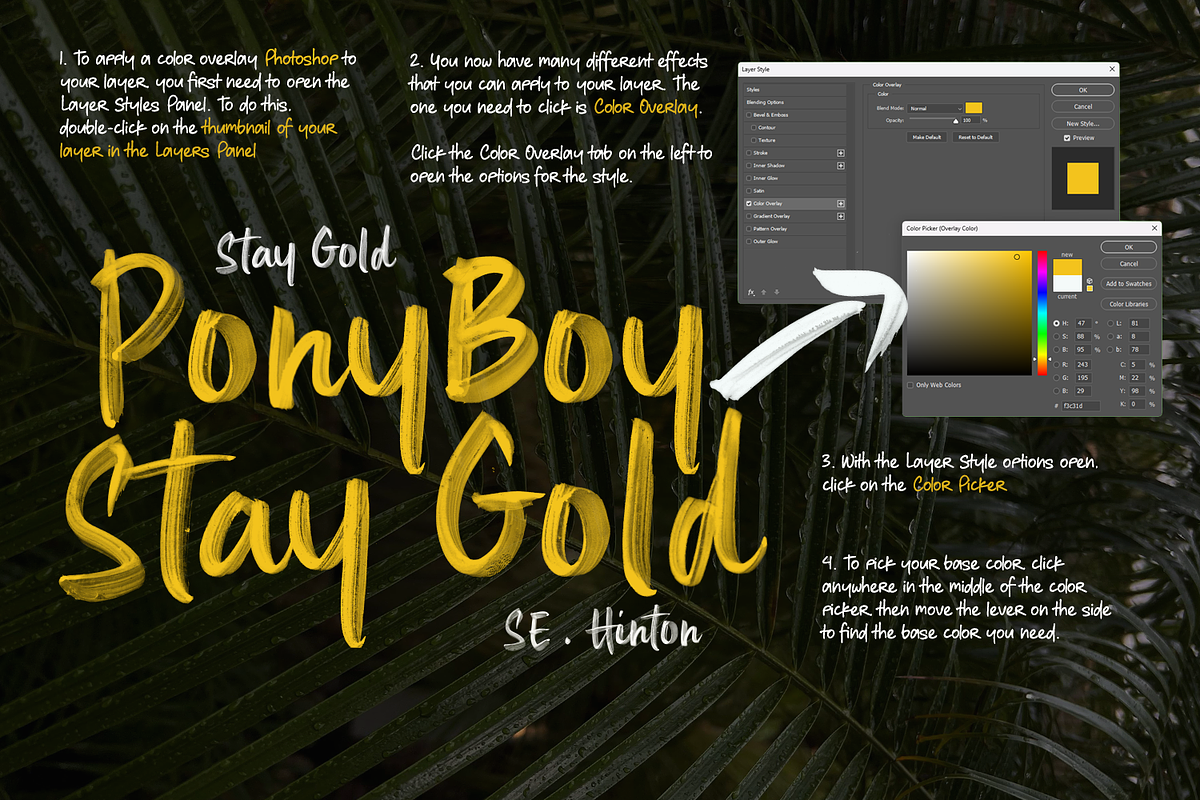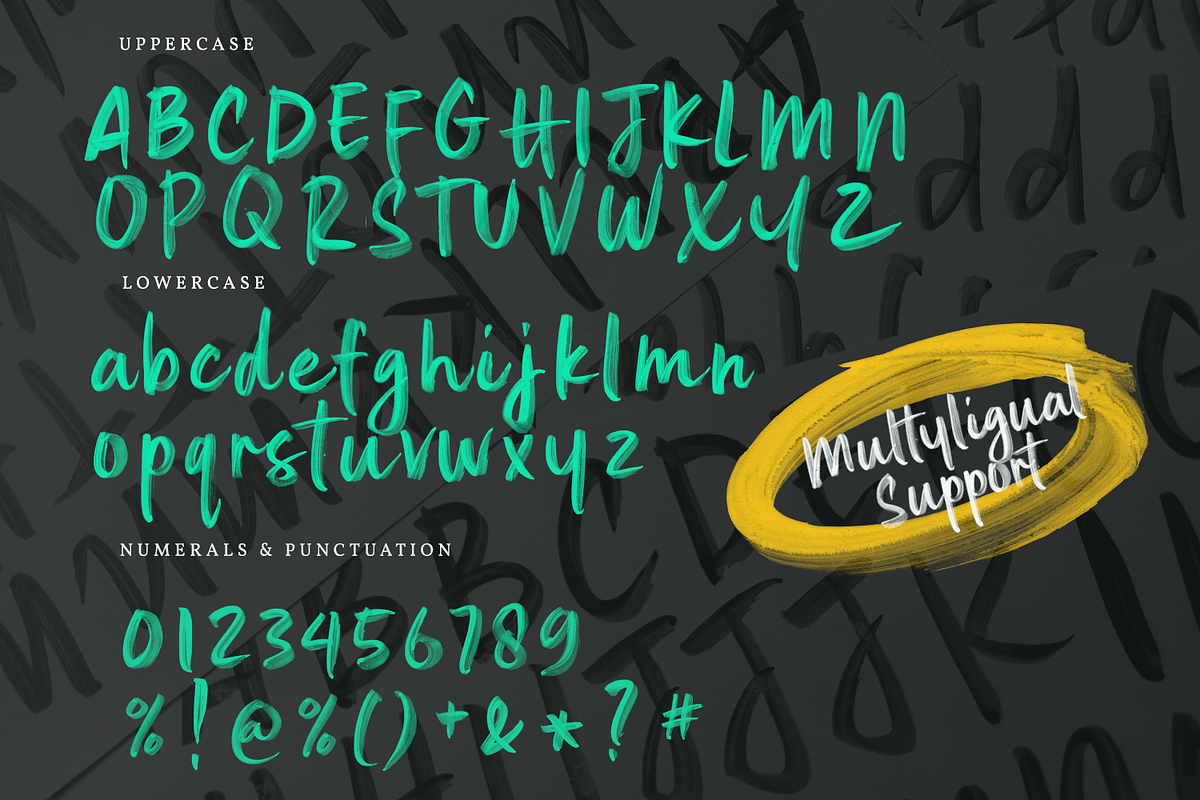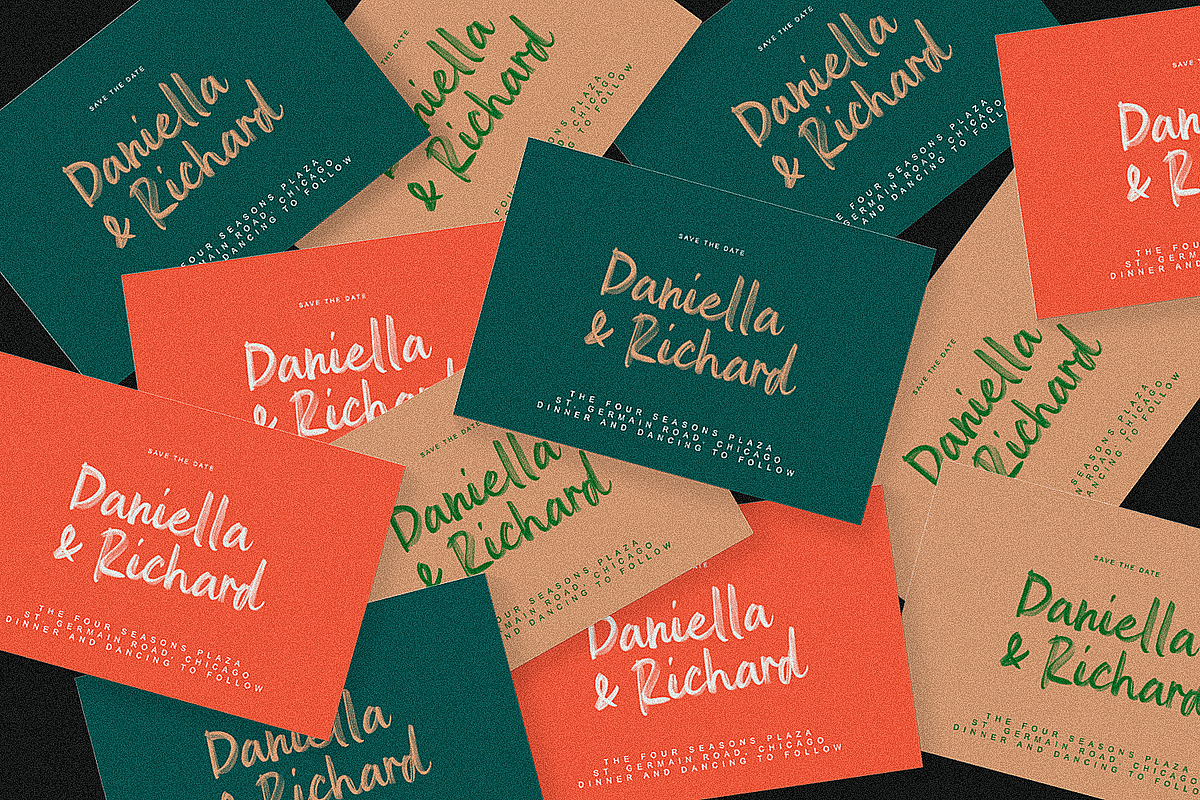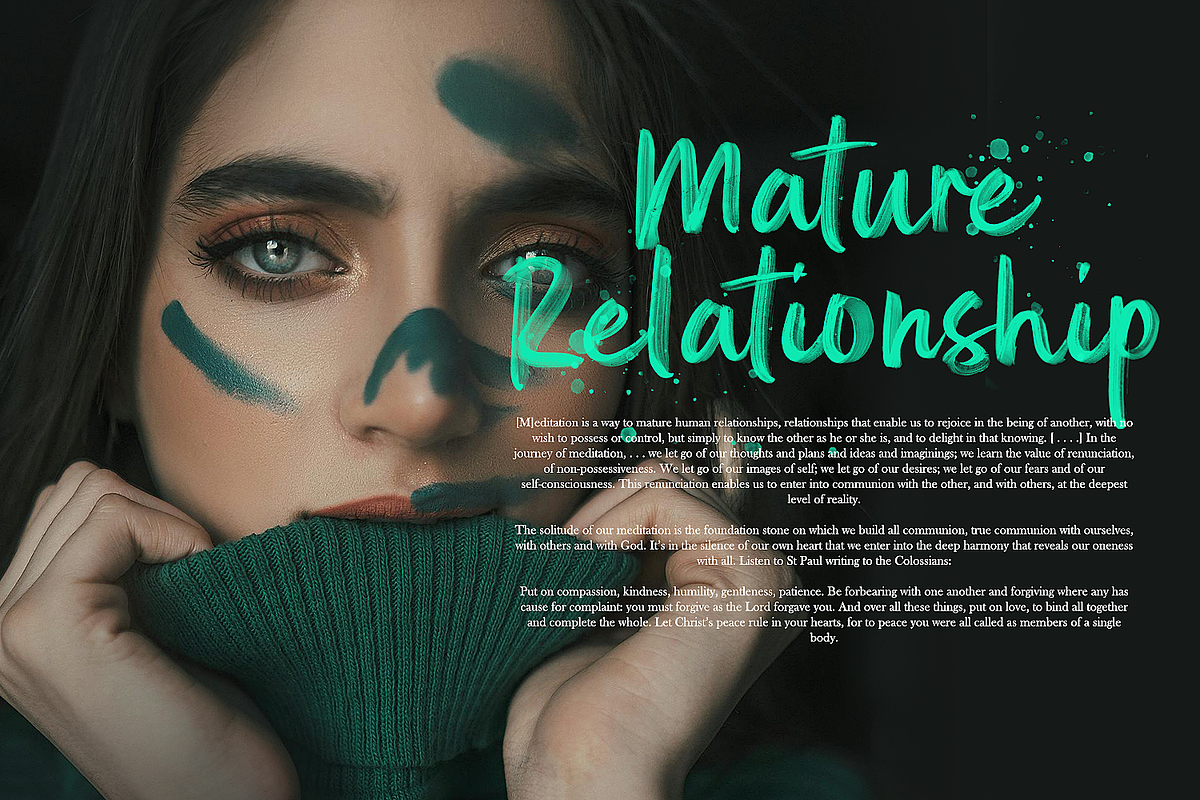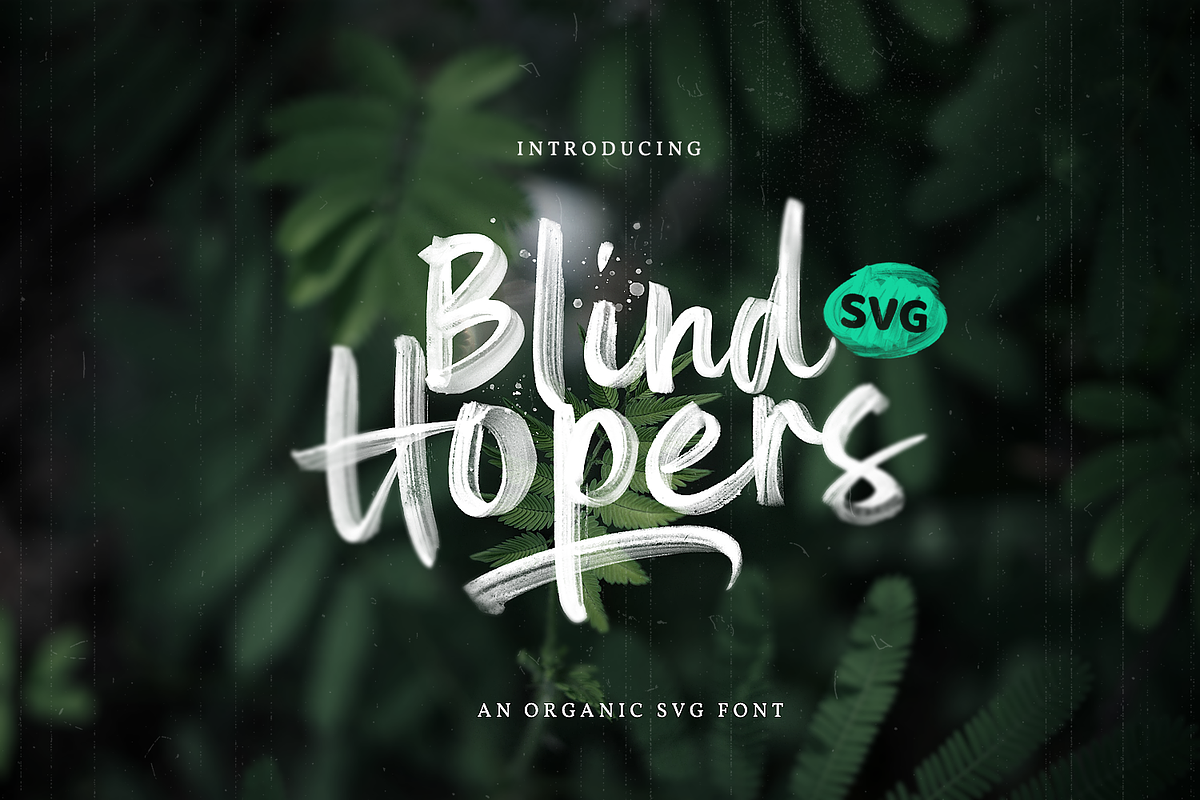
Blind Hopers
Blind Hopers These Opentype SVG fonts keep all of the transparency and texture of the original inked letters. Always Thankful will make your design projects burst with character and charm